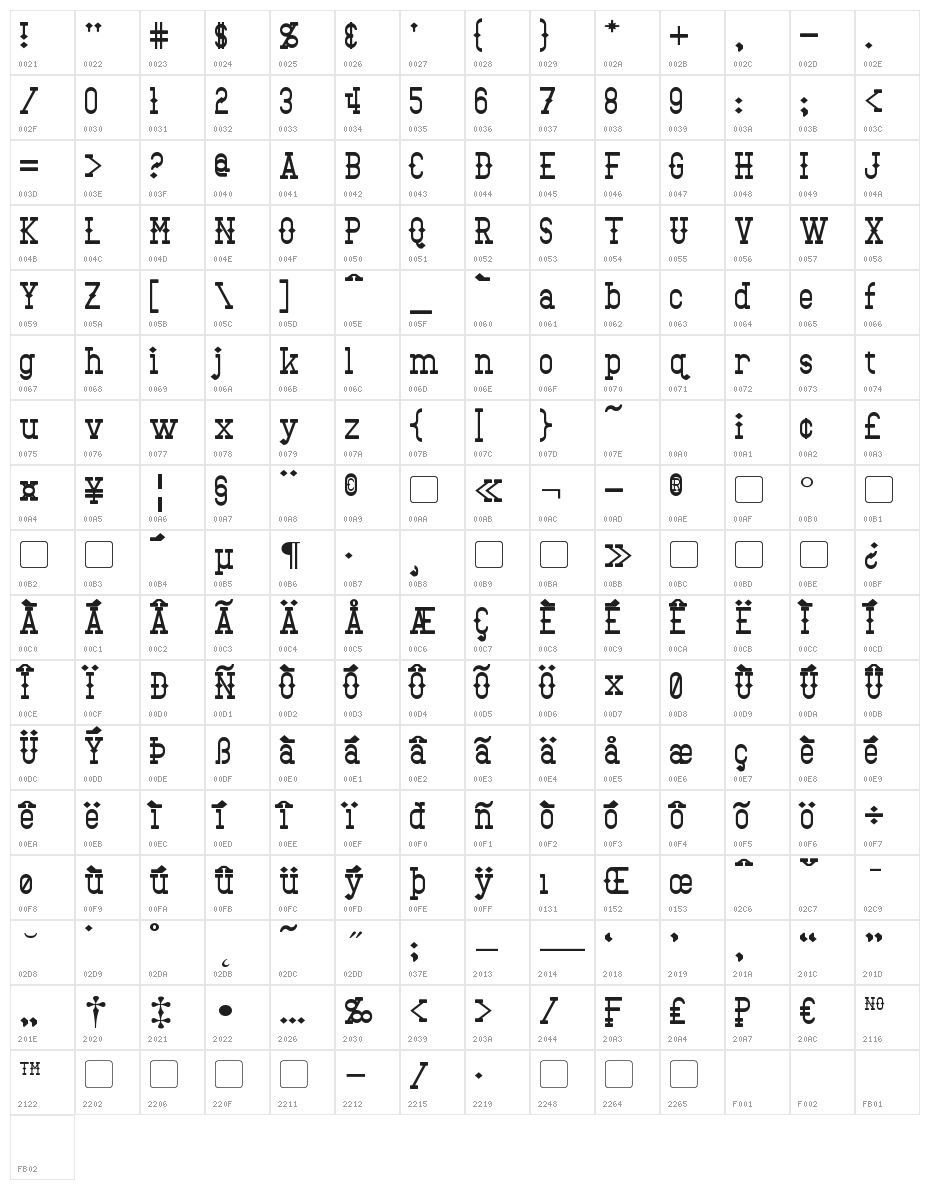
Bantorain Bold Font
Bantorain Bold Description
This font features a bold, slab serif style with strong geometric shapes and thick strokes. The characters are robust and have a distinct presence, making them highly legible and impactful. The uppercase letters exhibit a uniform height with wide, block-like serifs that add to the font's boldness. The lowercase letters maintain a similar weight, ensuring consistency across text. Numbers are equally bold and clear, with a design that complements the alphabetic characters. Special characters are well-defined, maintaining the overall aesthetic. The font's design is modern yet retains a classic touch, suitable for various applications.